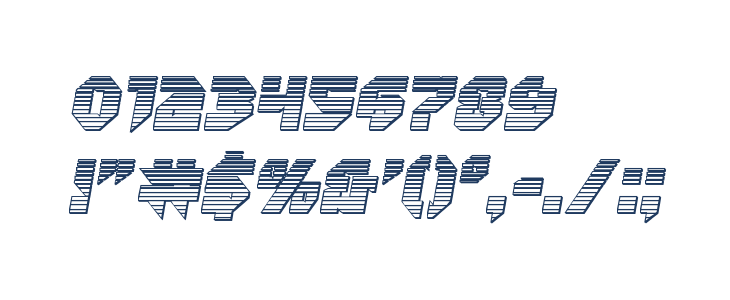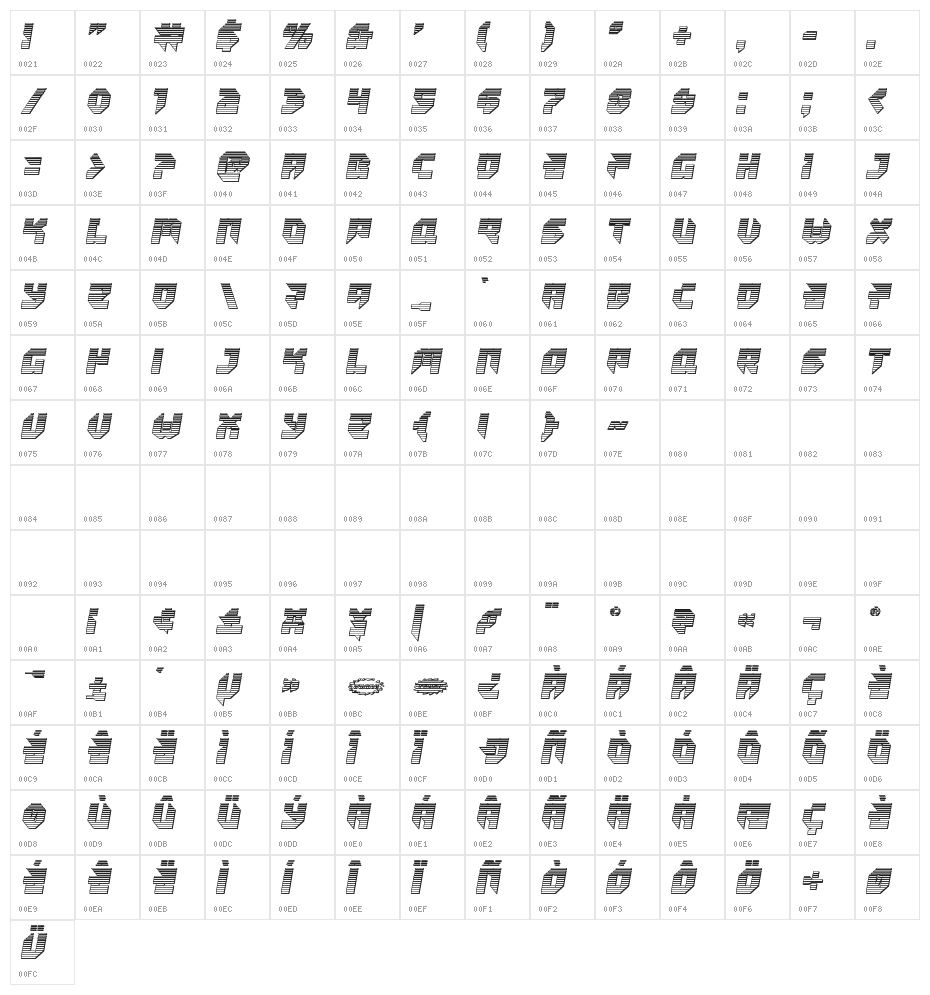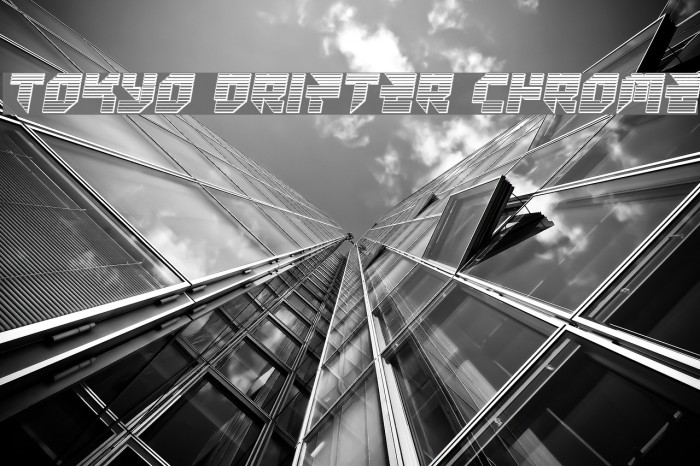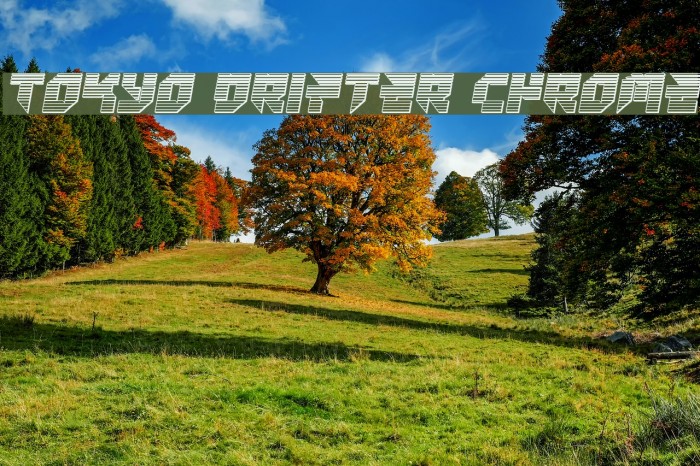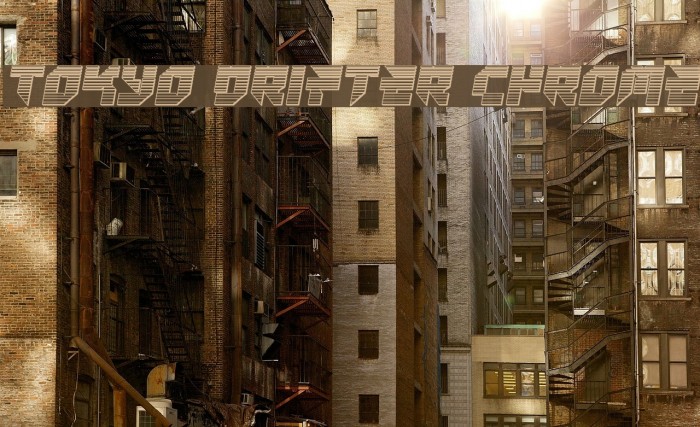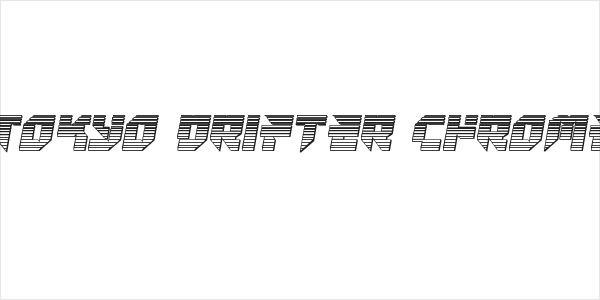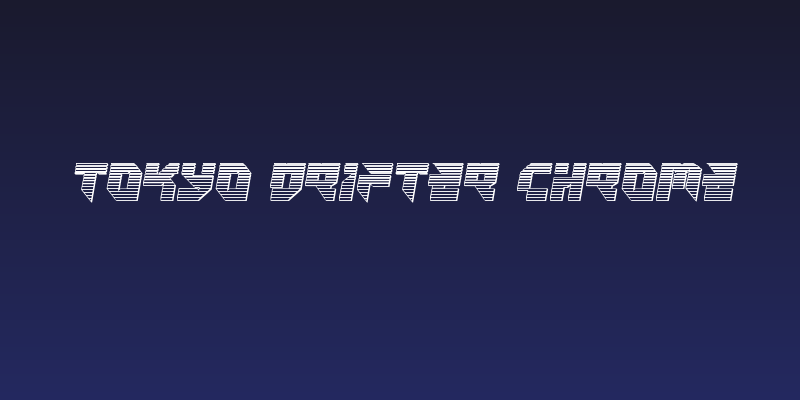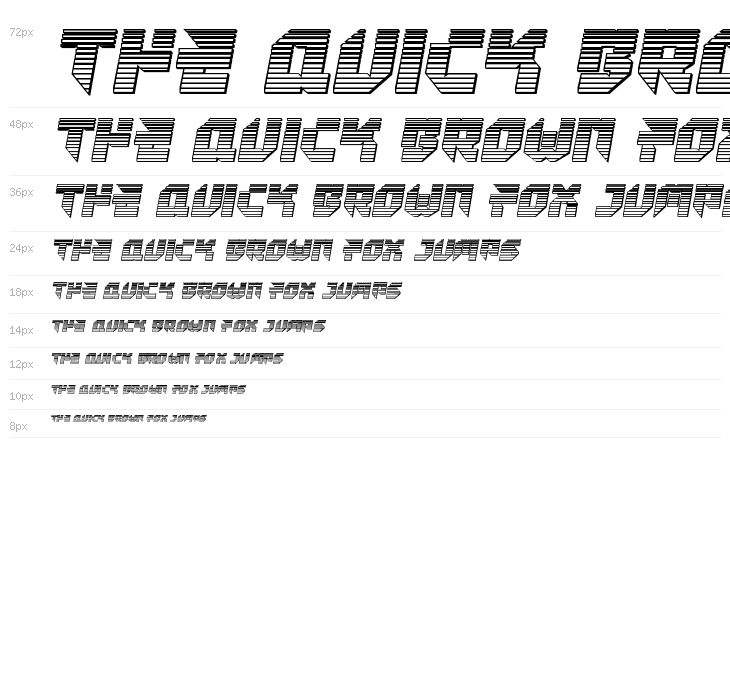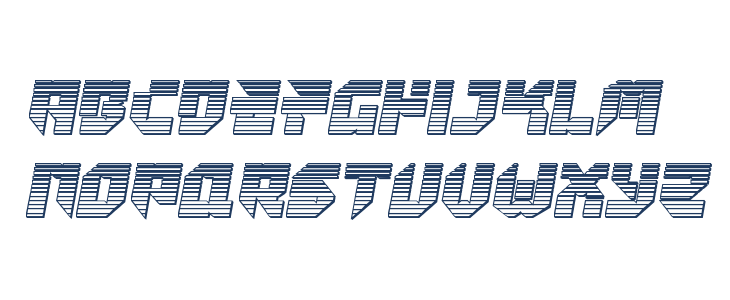
Tokyo Drifter Chrome Font
Tokyo Drifter Chrome Description
This font features a bold, futuristic design with a distinct 3D effect created by parallel lines that give each character a sense of depth and movement. The geometric shapes are sharp and angular, contributing to a modern and edgy aesthetic. The uppercase and lowercase letters maintain a consistent style, with numbers and special characters following suit. The overall look is dynamic and eye-catching, making it suitable for projects that require a strong visual impact. The font's unique style is reminiscent of retro-futuristic themes, often seen in sci-fi and tech-related designs.
| Proposed Projects | Ideal for sci-fi movie posters, tech company logos, video game titles, and futuristic event flyers. |